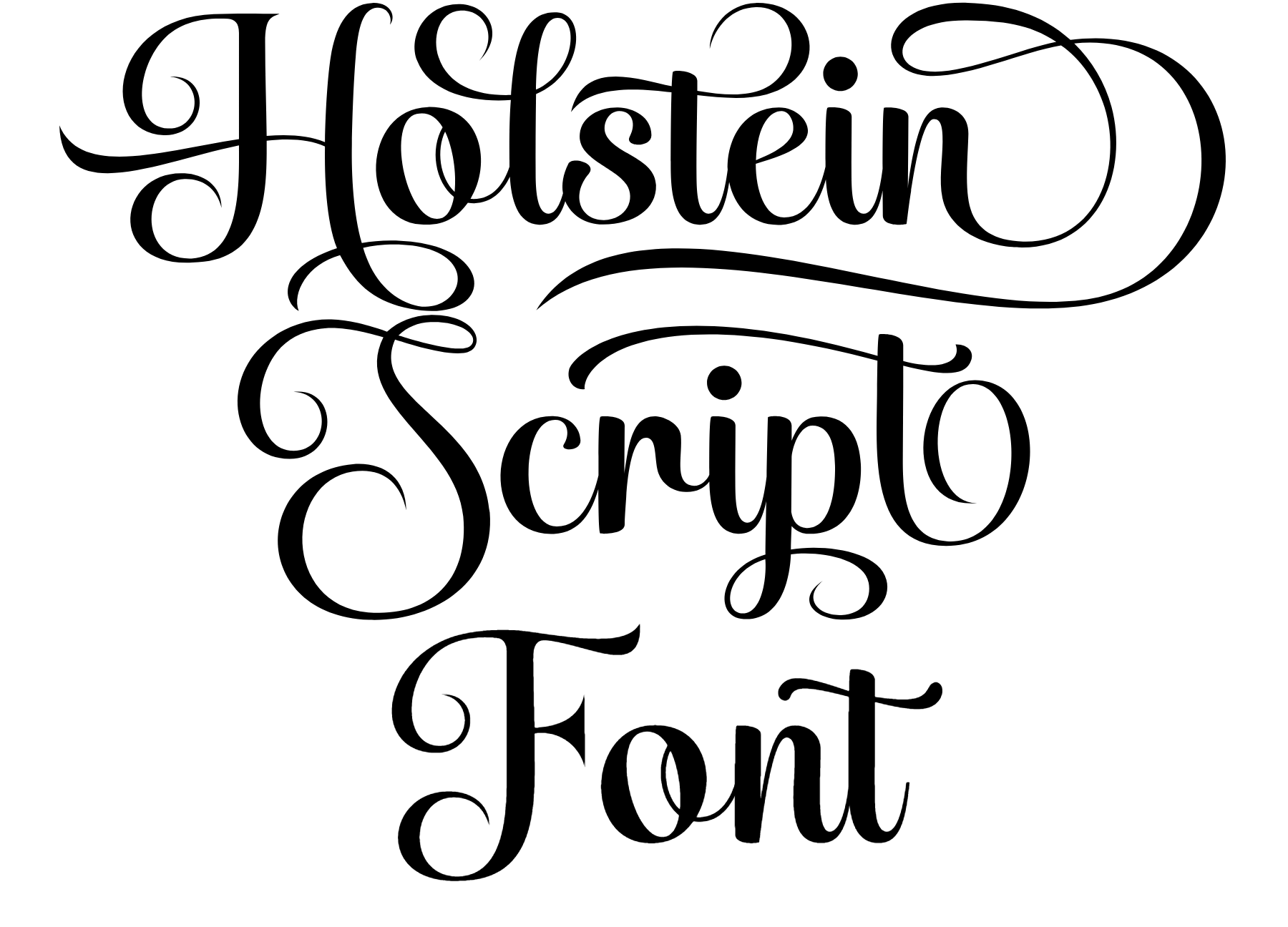
Holstein Script
Holstein Script is a calligraphy font created by Mans Greback and released through Mans Greback AB (2025). The letters have the smooth movement of real pen lettering, which is why even a single name looks special in it. It's a free download, and you can try it with your own text in the preview above first.
- OpenType features: Ligatures (including optional ones), 6 stylistic sets, old-style numbers and fractions
With complete upper and lowercase letters and all ten digits, Holstein Script is ready for real wording, not just a single headline. Common punctuation such as &, !, ? and @ is included as well. It also has the accented letters you need for Spanish, French, German, Portuguese and Italian.
Holstein Script is a natural fit for wedding invitations, certificates and elegant quotes. Script fonts read best in short bursts, so keep it to names, titles and one-line quotes. Skip all caps: script capitals are drawn to start a word, not to fill one.